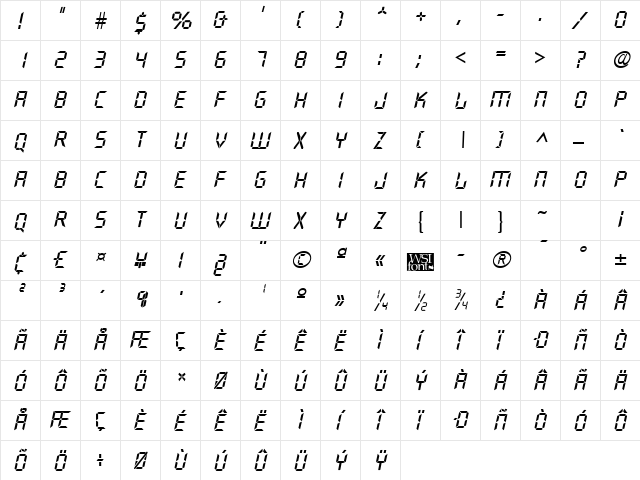
Digiface Italic Font Preview
Digiface Italic
Digiface Italic Font Details
Design Context for Digiface Typeface
Digiface takes a measured approach to typography — its balanced proportions and neutral character make it a reliable workhorse for both digital and print work. Its italic angle brings a sense of urgency and motion to the letterforms.
Pro Tip: Use Digiface for emphasis, pull quotes, and subheadings where its slanted energy can add rhythm to the layout.